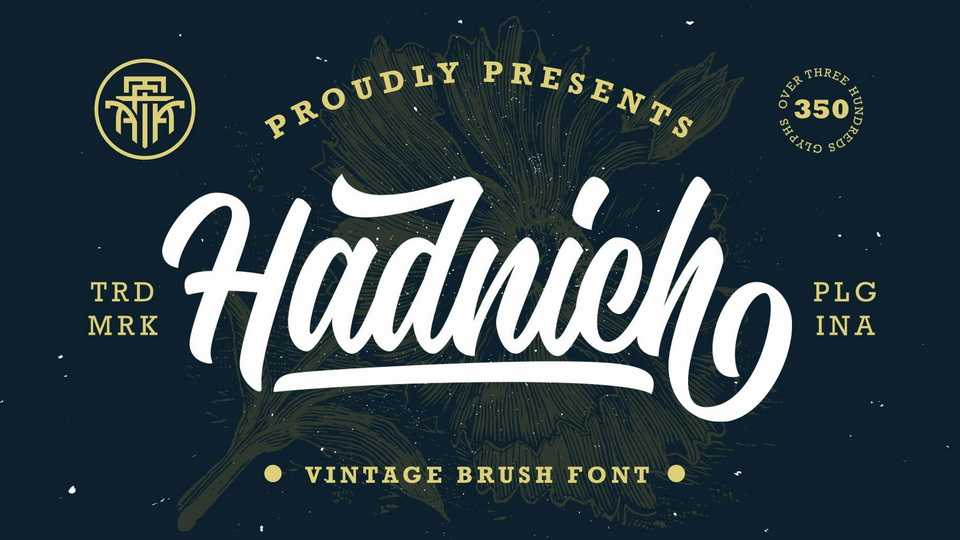
Download Hadnich font, a versatile script typeface inspired by a vintage brush typography. Carefully designed with the taste of old school sign painting, Hadnich has the neat letterforms, attractive move and combined in modern form.